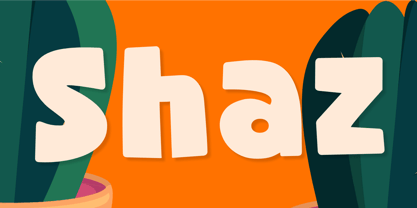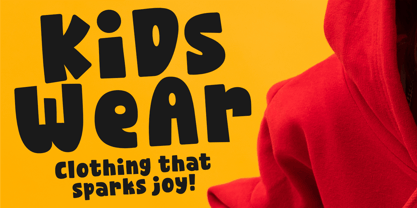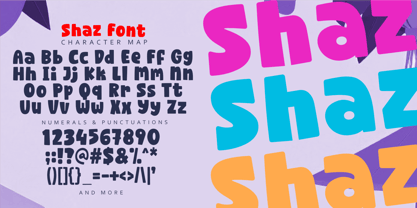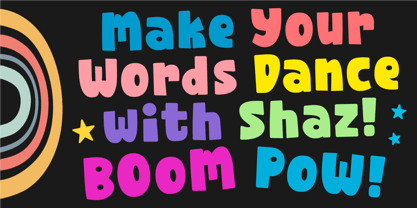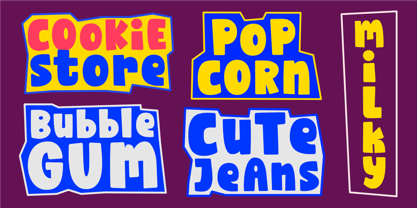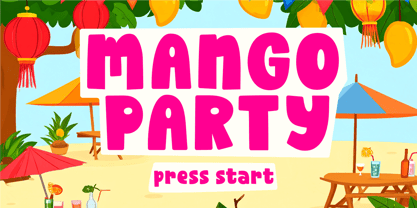
Shaz
The Shaz Font Family was designed by Aldy Sidik and published by Epiclinez. Shaz contains 1 styles.
Shaz is a cute, bold, fun, and playful font designed to make your words pop with energy. Perfect for cartoon font lovers and anyone needing a bold font for movie titles, gaming logos, kids' branding, and colorful product packaging, this bubbly font brings joy and personality to every design. Whether you're working on a fun display font for YouTube thumbnails, a child friendly font for animated content, or a stron,g playful typeface for creative logos and headlines Shaz delivers the wow yeah vibe. It’s the ideal choice for bold, fun font across gaming font designs, movie font styles, cartoon projects, and anything that calls for a joyful font with character.